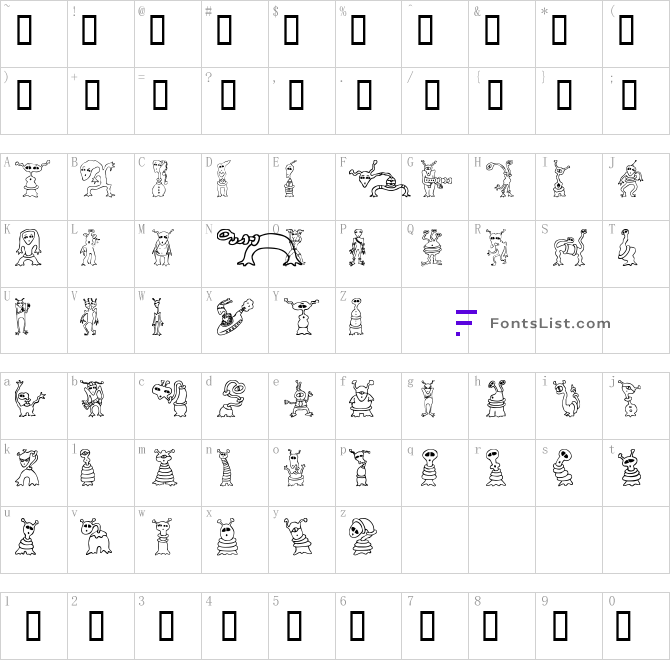
- Font Name:Alien Twits
Alien-Twits.ttf is a very beautiful artistic font, Alien-Twits.ttf is widely used in the design and printing of various books and pictures,Alien-Twits.ttf has a strong visual impact,Alien-Twits.ttf is a commonly used font in newspapers, magazines and books, and is used in posters, e-commerce Poster design, store design, logo design, font design and other fields.Alien-Twits.